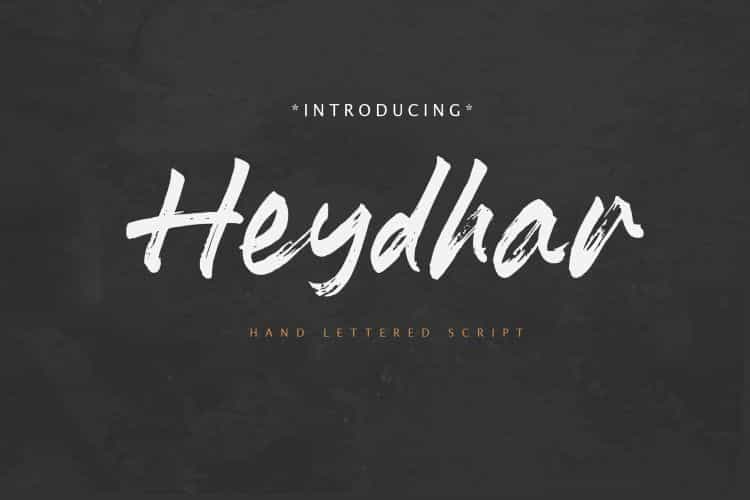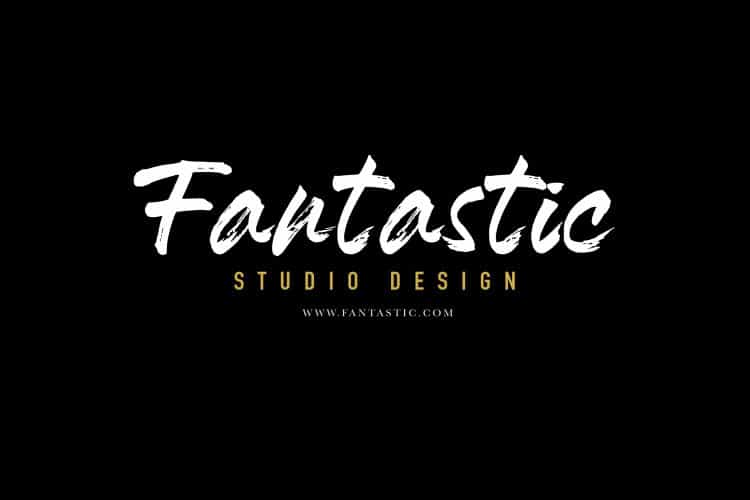
Heydhar is a relaxed brush font, it is perfect for t-shirts, magazines, phone covers, social media, restaurant menus, greeting cards, invitations, weddings, headers and many more. This brush font is accompanied by a full set of lower and upper case characters, numerals and multilingual support.